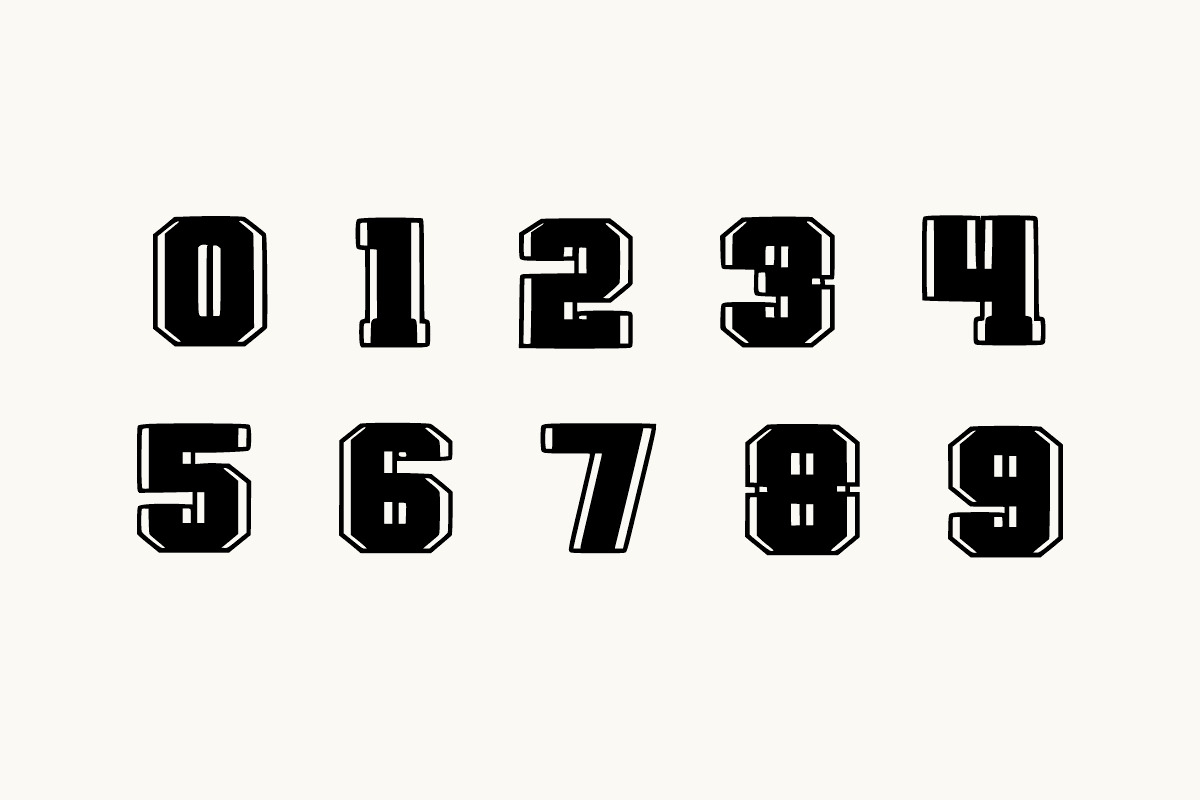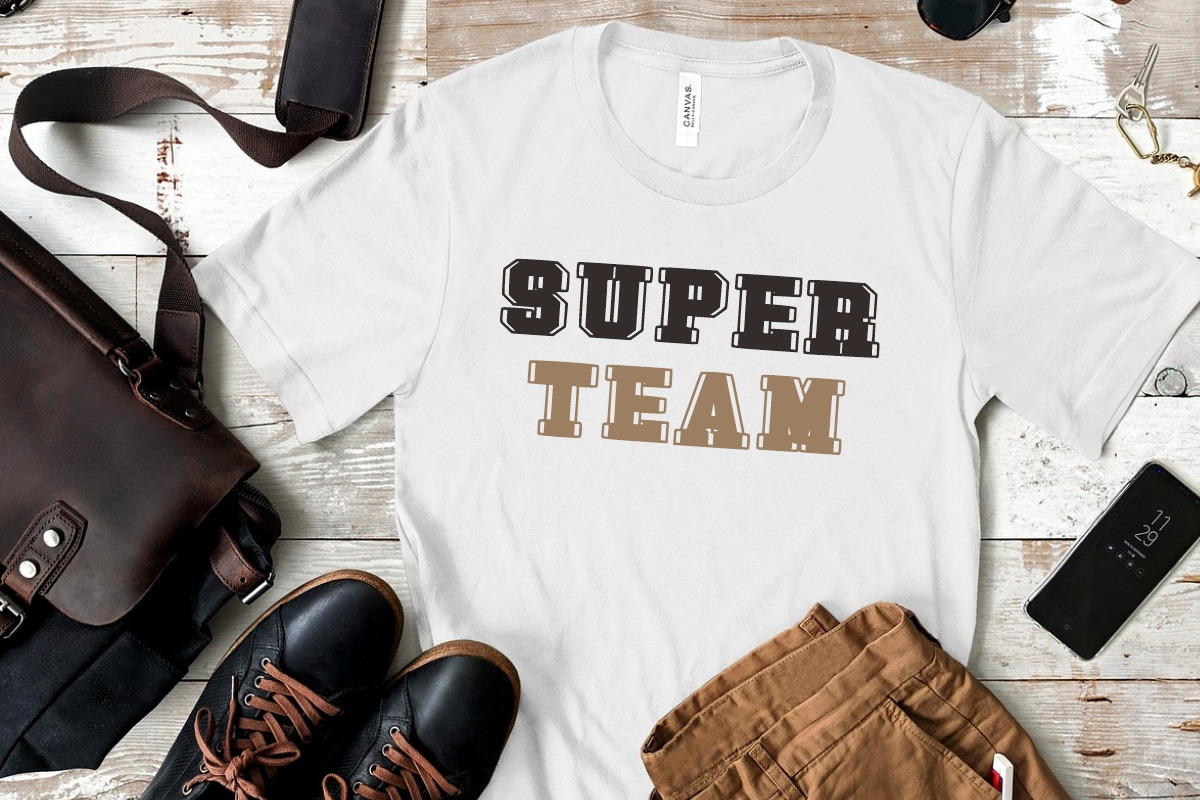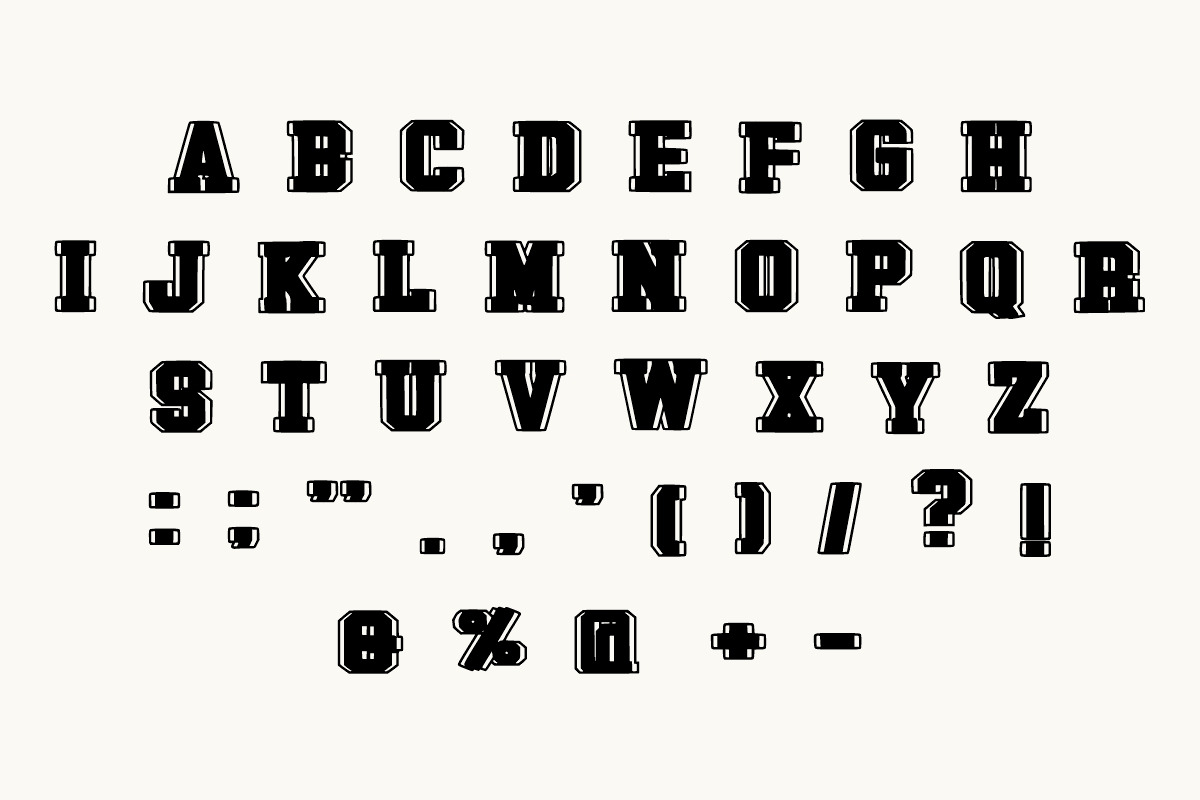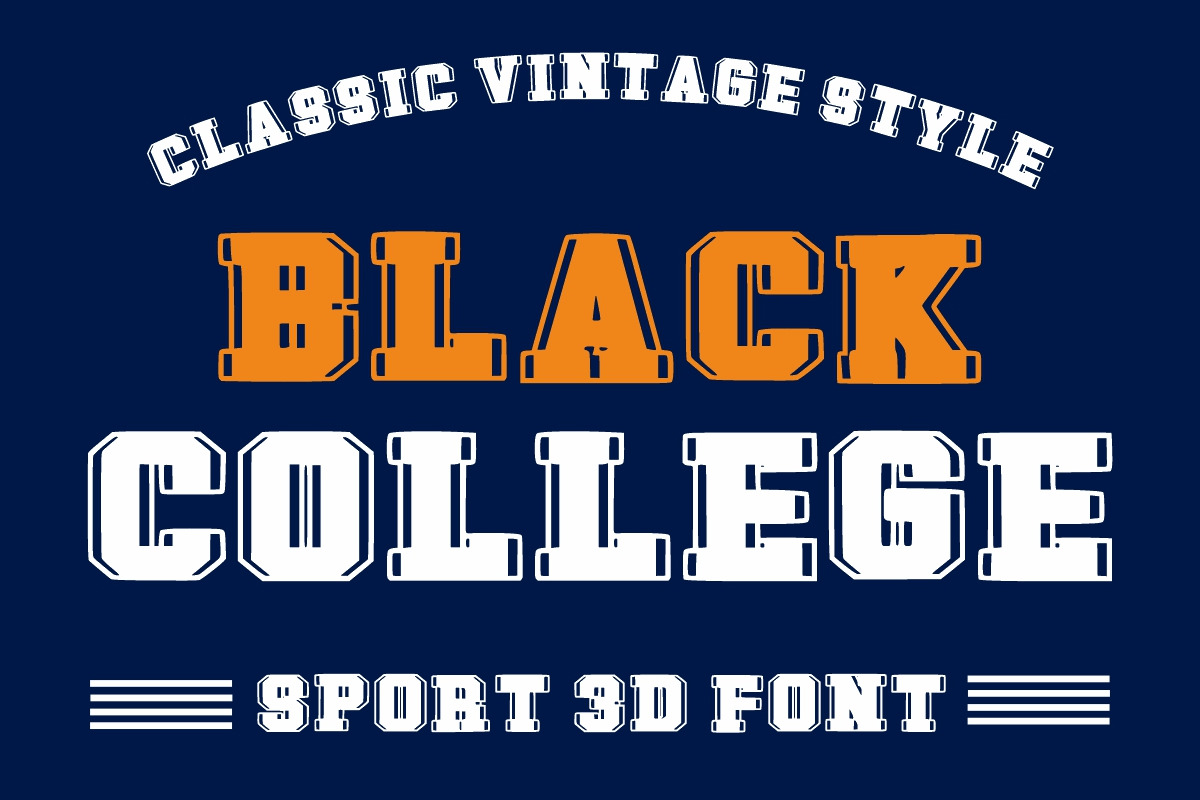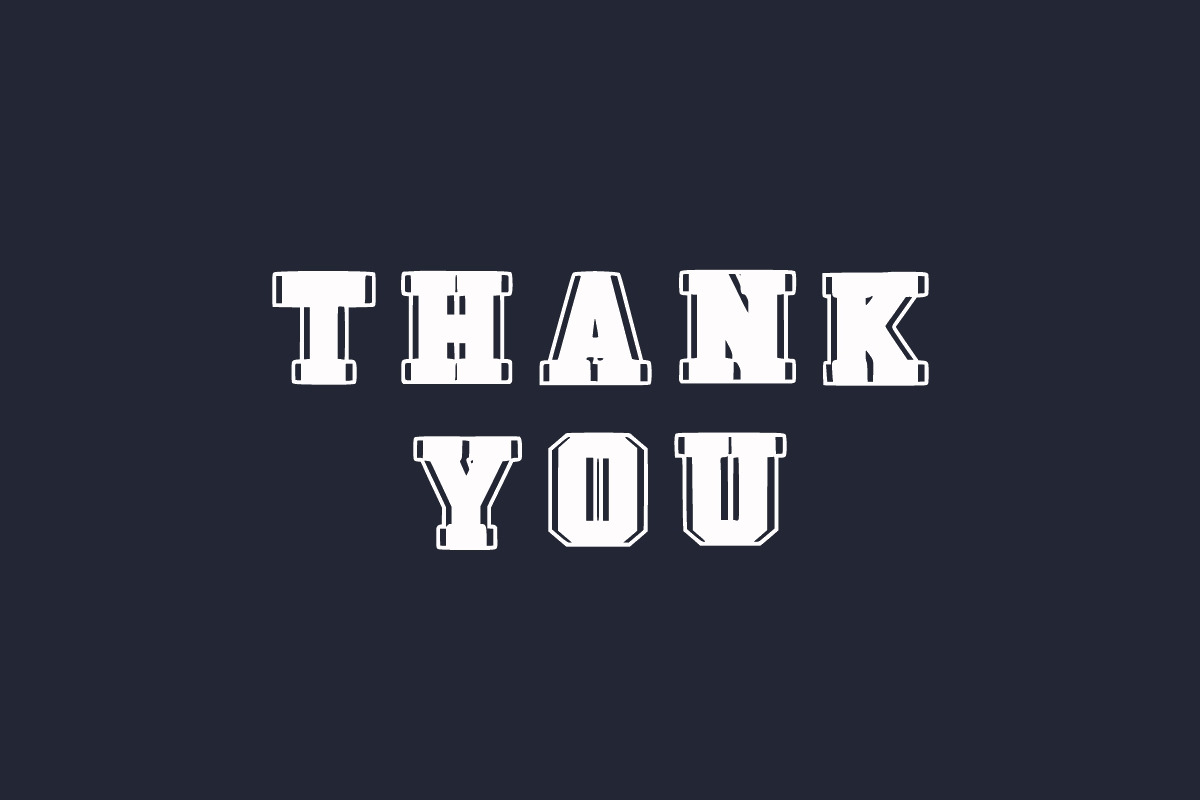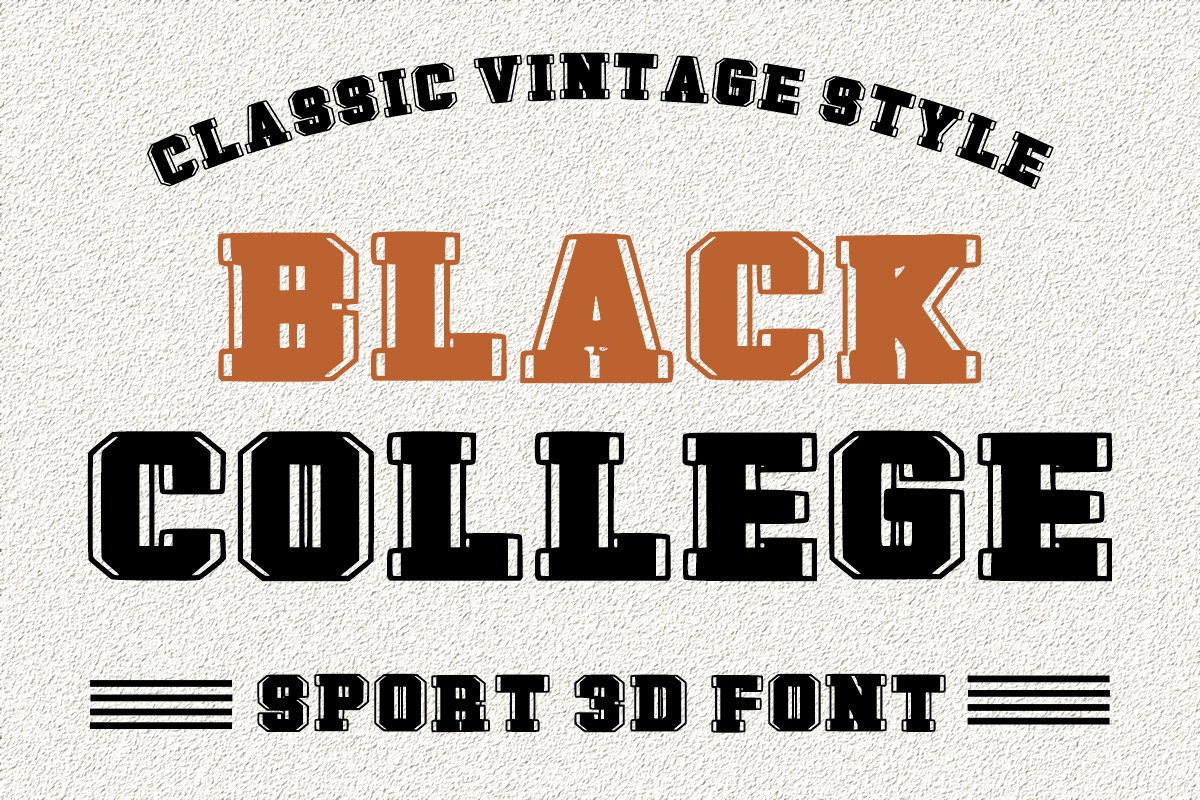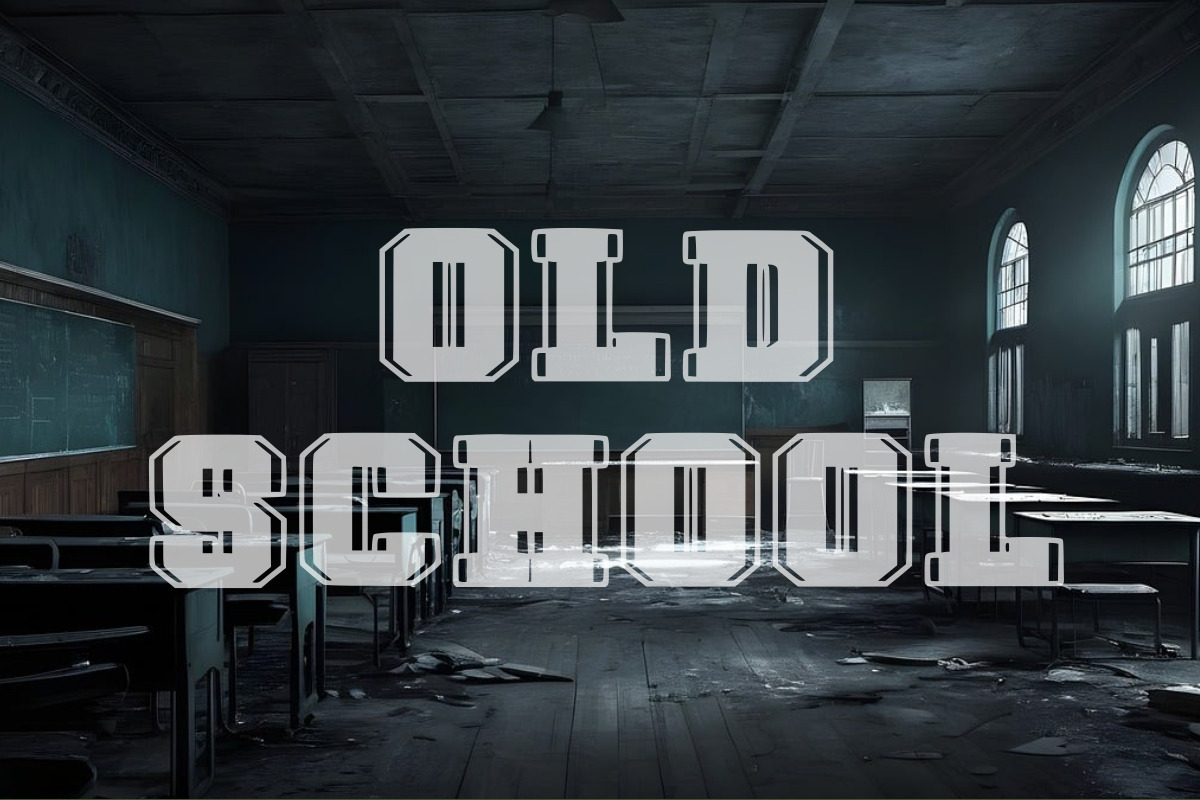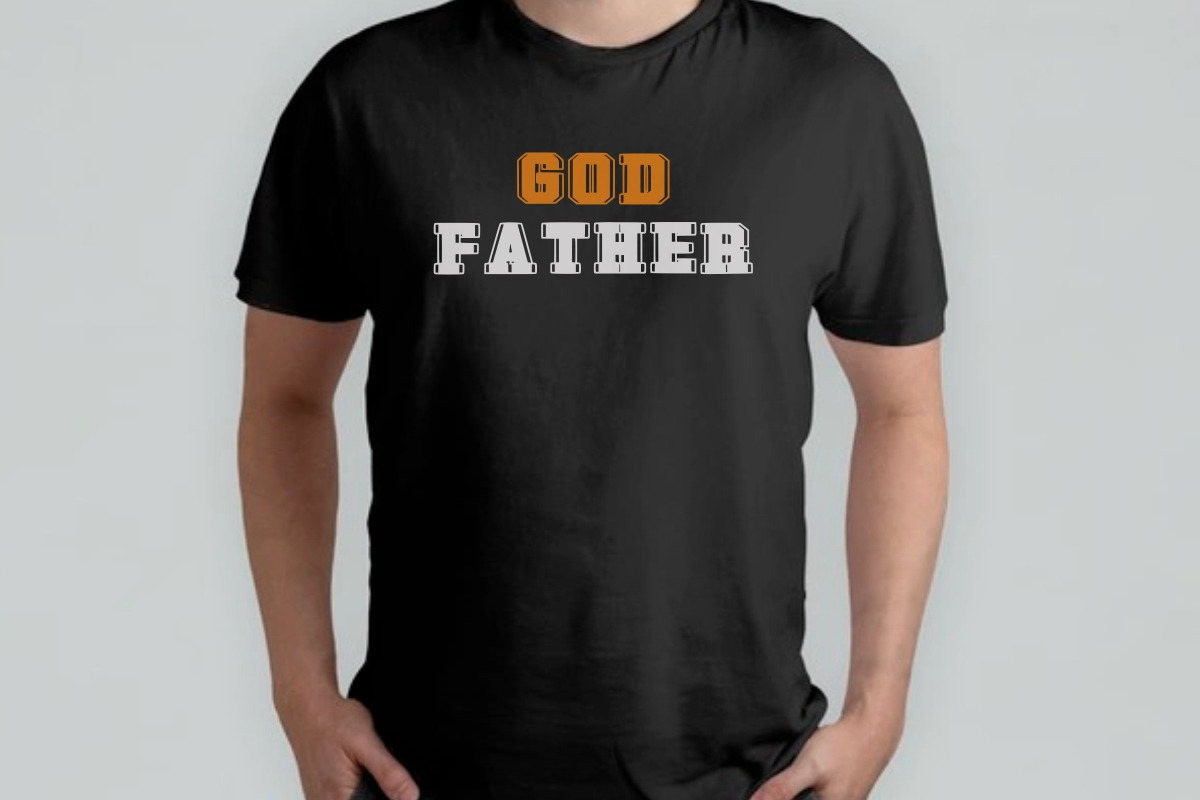
Black College - Vintage Font
Black College is a classic vintage and sport display font. It is suitable for any winter and holiday branding project, product packaging, invitation, quote, t-shirt, label, poster, text effect, label, and logo that you wish to develop.